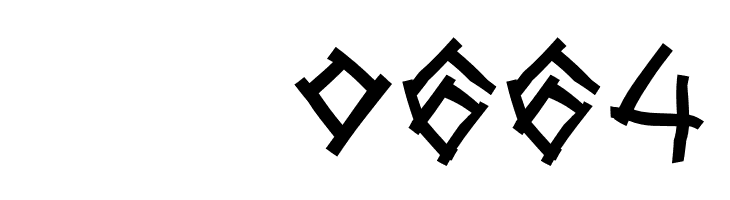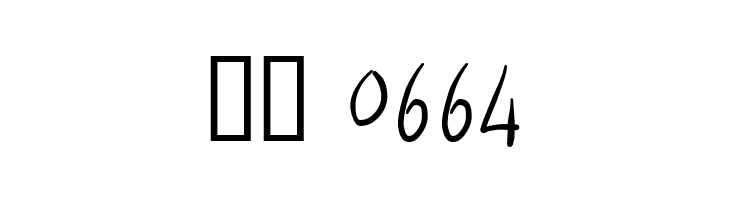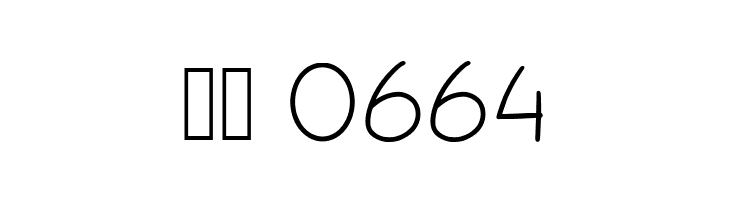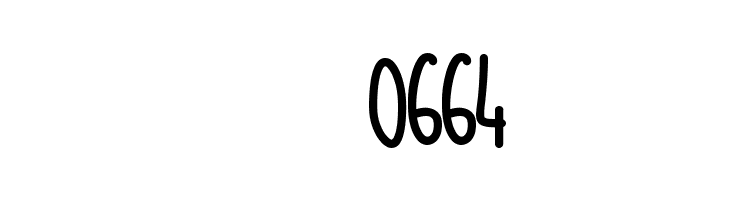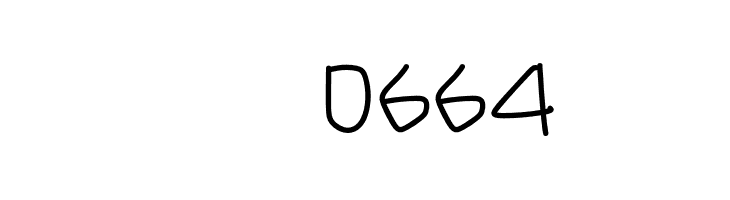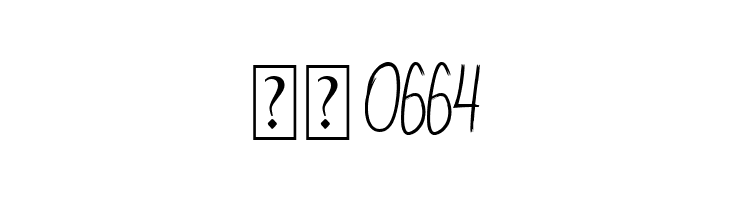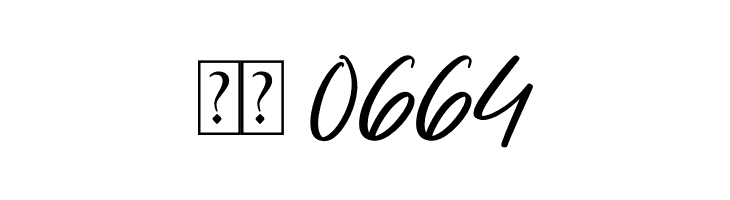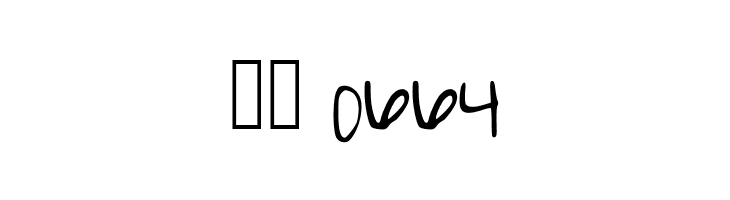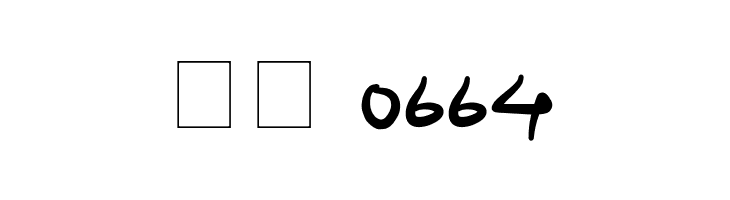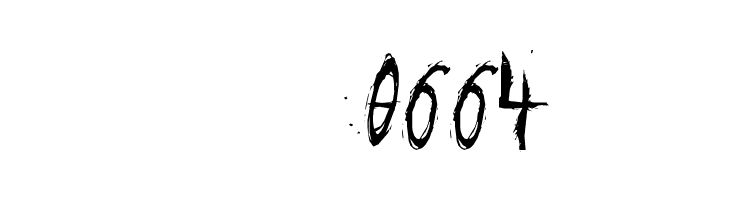
Tall, narrow handwritten script with playful, fluid strokes.
A graceful, flowing script font with a natural handwriting appearance.
A lively handwritten font with fluid, cursive strokes and a modern, playful style.
Playful handwritten font.
A playful, whimsical script font with a handwritten style.
A decorative script font with elegant, flowing cursive letters and intricate swashes.
A playful, handwritten font with smooth, rounded edges and consistent stroke width.
Playful handwritten font with a casual style.
A bold, playful script font with a hand-drawn, brush-like style.
A romantic and elegant script font with flowing, handwritten characteristics.
A playful, handwritten font with tall, narrow letters and a slight slant.
A bold, energetic handwritten font with a playful and informal style.
A modern, elegant script font with a flowing, handwritten style.
A playful, elegant script font with a handwritten, whimsical style.
A playful, casual handwritten font with irregular strokes and a whimsical appearance.
A playful, hand-drawn font with tall, narrow characters and a whimsical style.